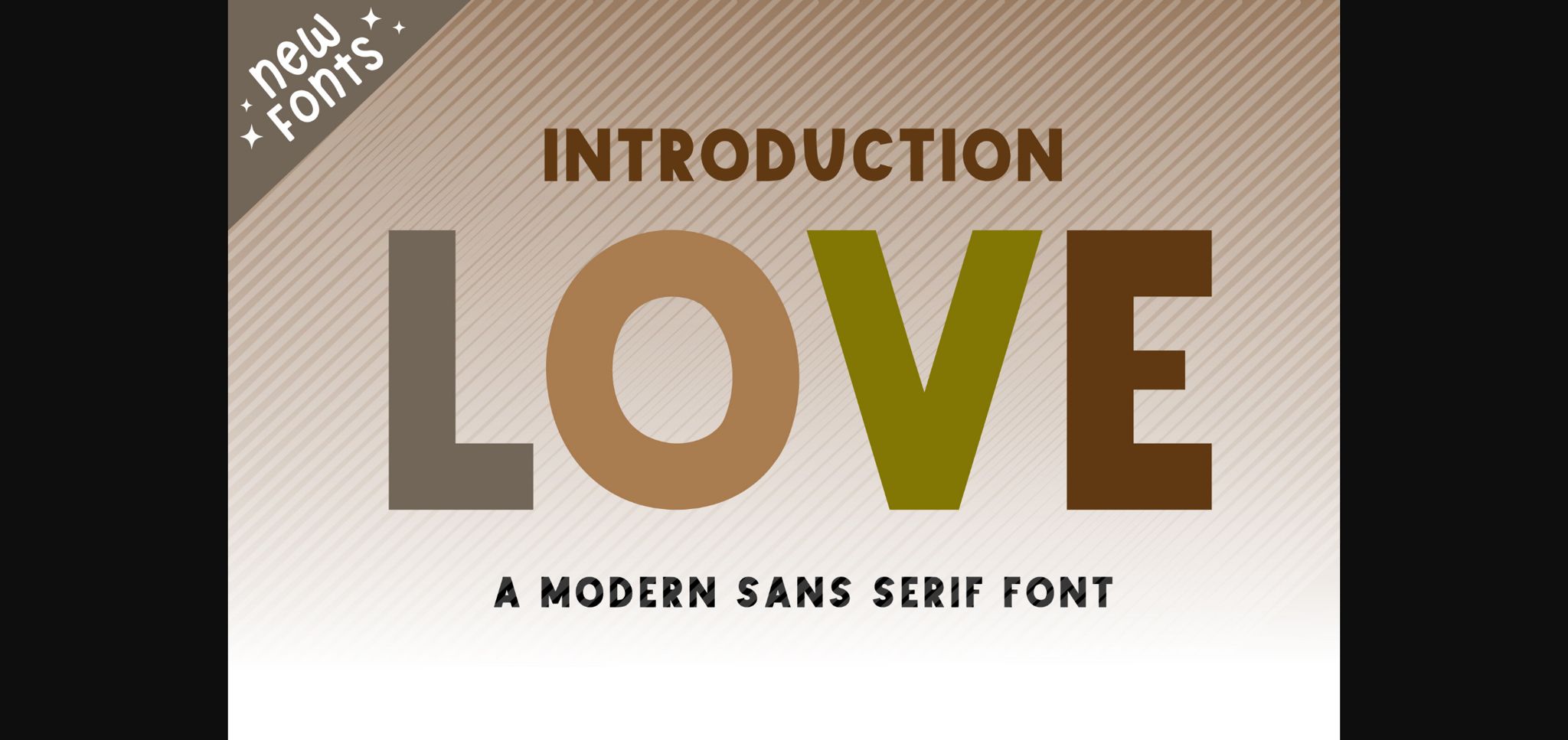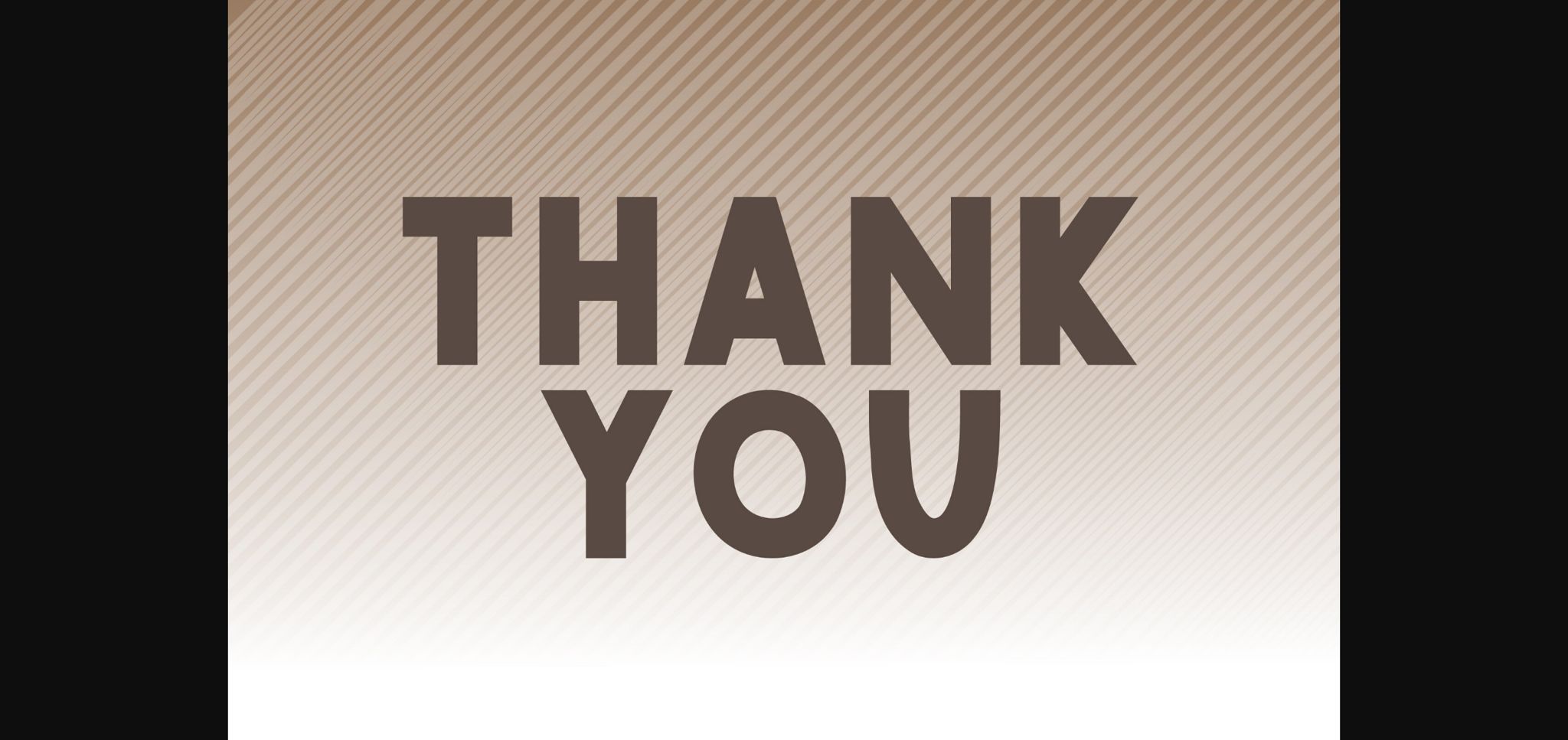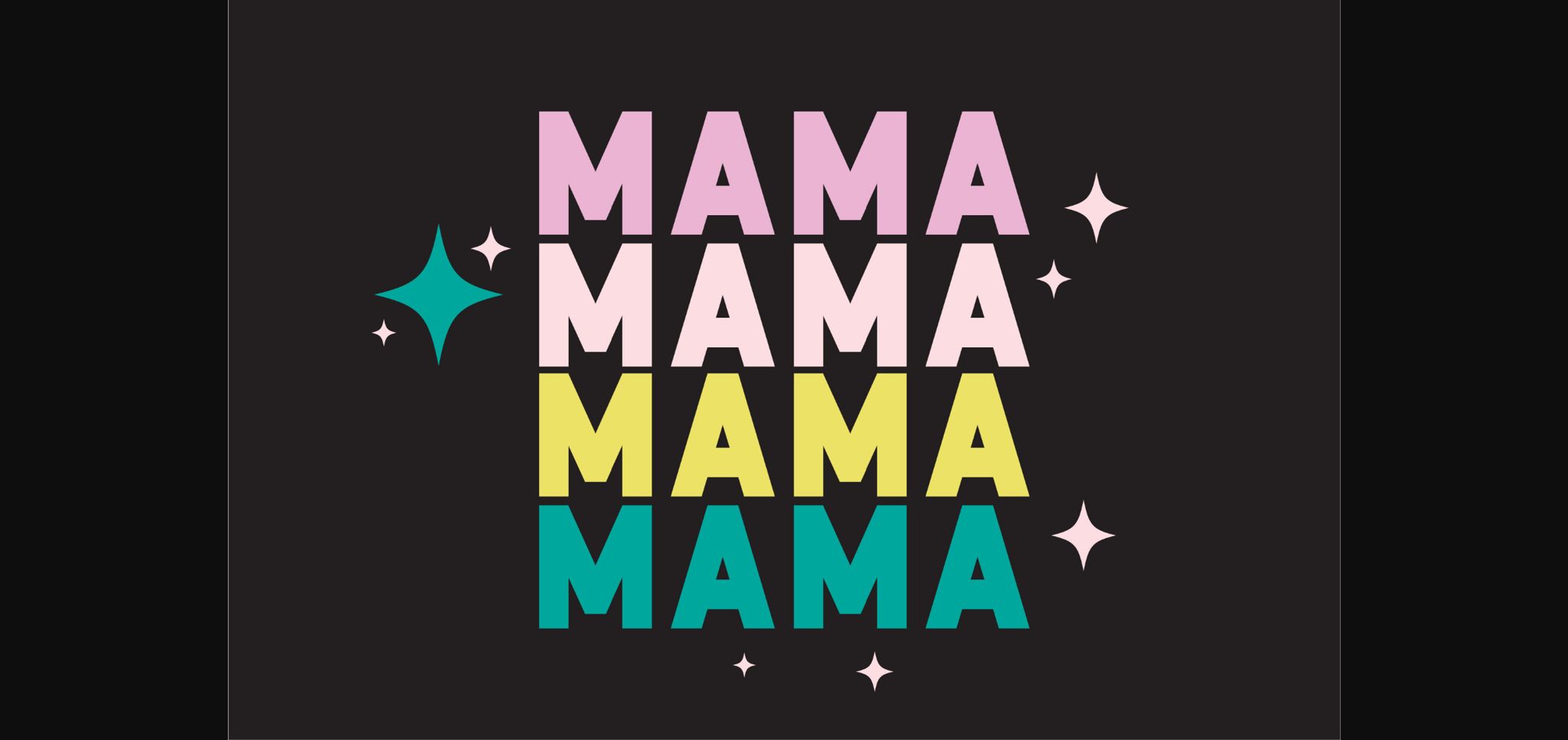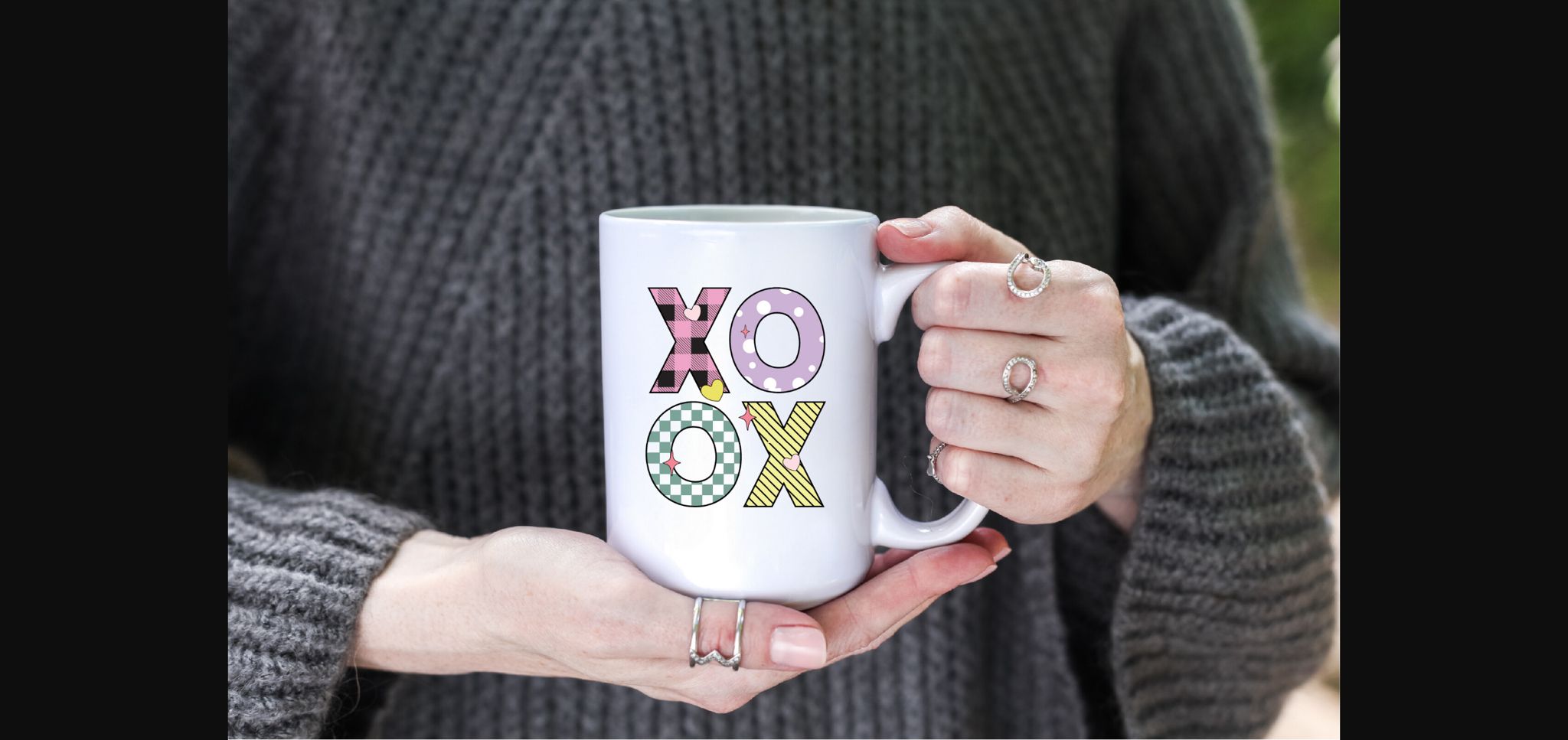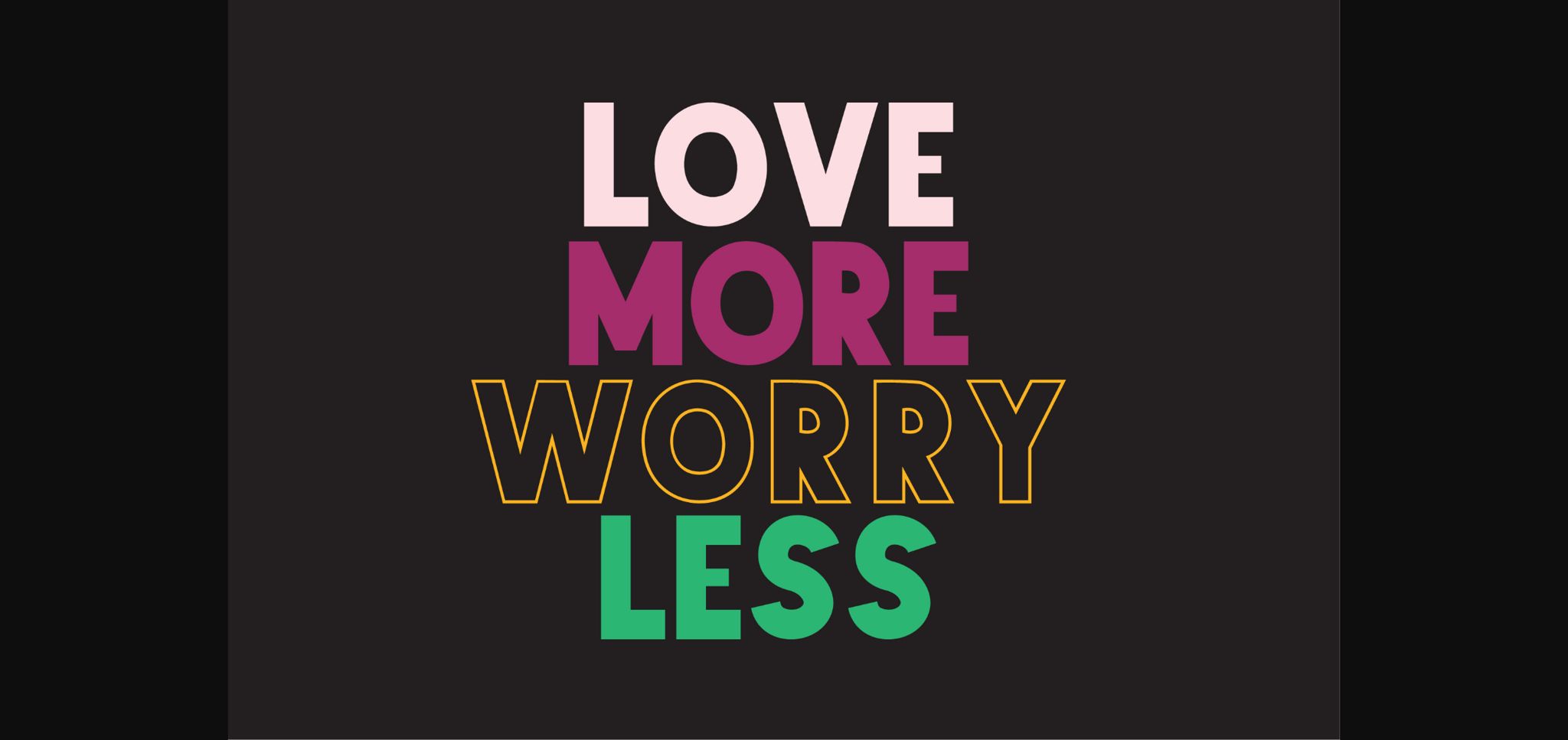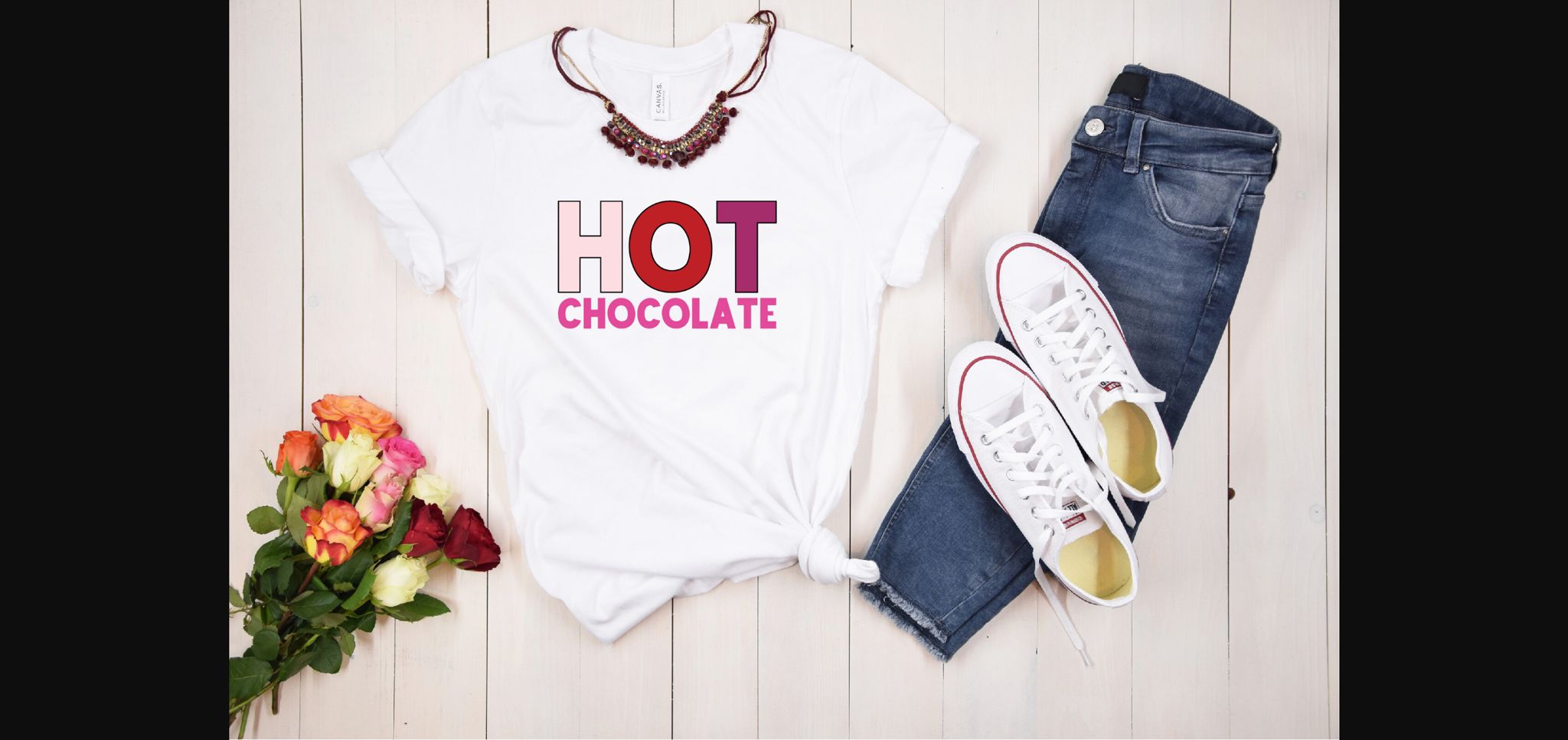
About Love Font
Love is a modern sans serif font. This font well-balanced the characters very well. Which is consistent with your design.
Add your best ideas, and see how interesting it is! The font has two types( Love Regular & Love Outline).